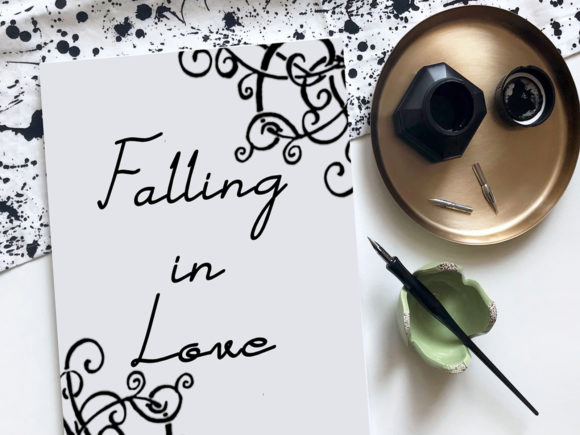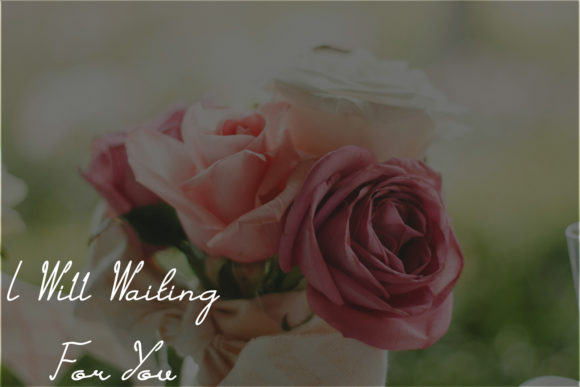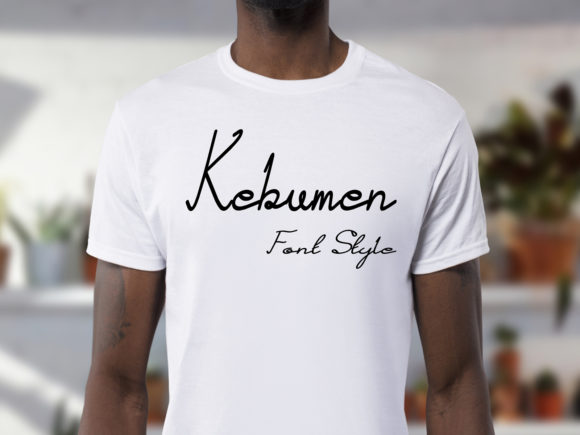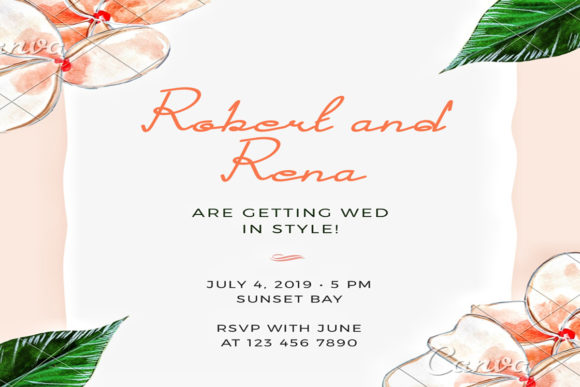
Kebumen Font
About Kebumen Font
Kebumen is a beautiful and elegant handwritten font with a unique feel. Get inspired by its unique charm, and turn any design project into a stand out!